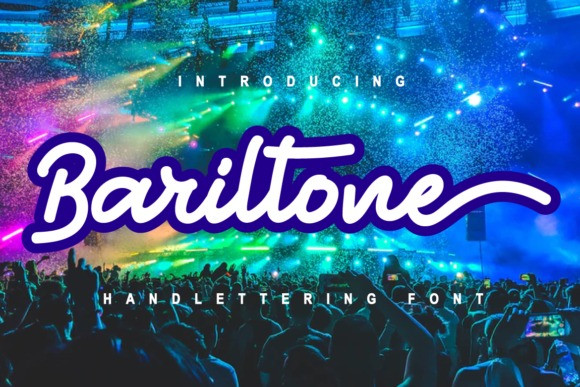
Barieltone Script Font
Bariltone is a cursive handwritten font, described by an elegant touch, perfect for your favorite projects. Fall for its ravishing style and use it to create gorgeous wedding invitations, beautiful stationary art, eye-catching social media posts, and much more!